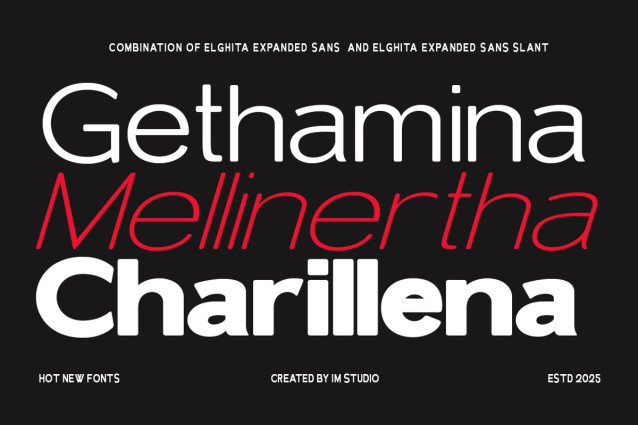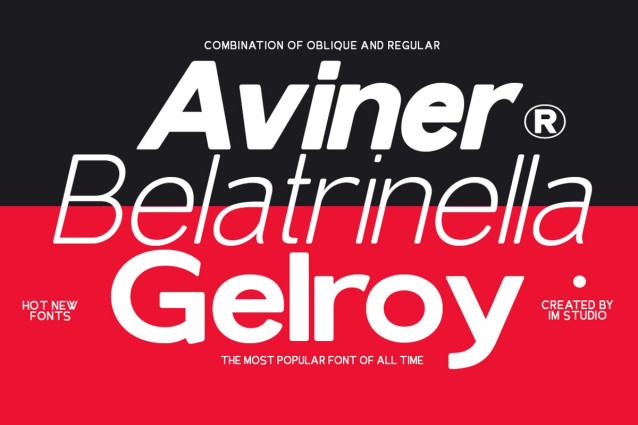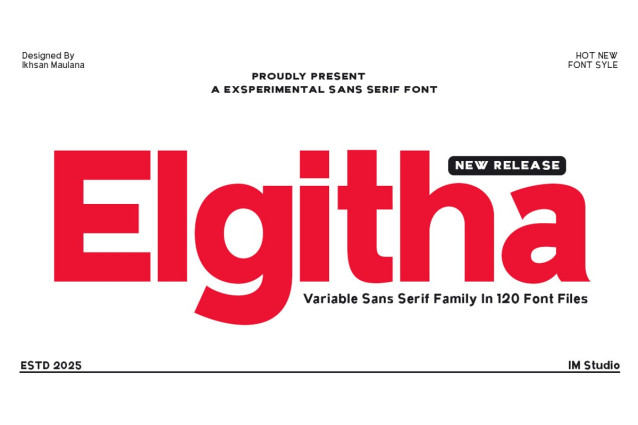
Elghita Font Family
Elghita Font Family is a variable typeface family that harmoniously combines serif and sans-serif styles, creating a perfect balance between tradition and modernity. Designed around three axes—weight, width, and slant—Elghita gives designers a great moment to precisely customize its look.
Its serif style exudes elegance and refinement, making it an ideal choice for editorial design, luxury branding, and formal communications. Meanwhile, the sans-serif variant offers a clean and modern aesthetic, perfect for corporate identities, digital interfaces, and contemporary layouts.
With its expansive design space, Elghita adapts easily to a variety of applications, ensuring readability and visual harmony across print and digital platforms. Used separately or together, the two styles create a cohesive and versatile typographic system, allowing for limitless creative exploration. Its fine details and dynamic range make Elghita an essential tool for designers who prioritize both aesthetic and functional beauty in their typography.